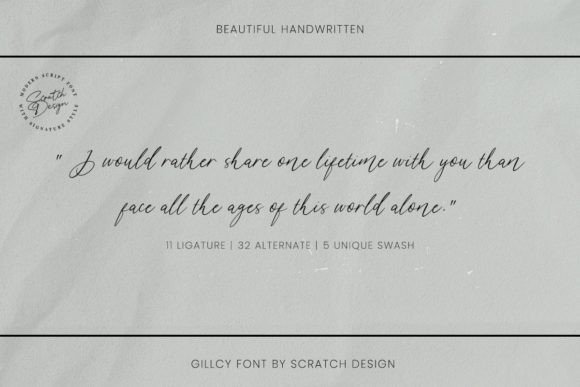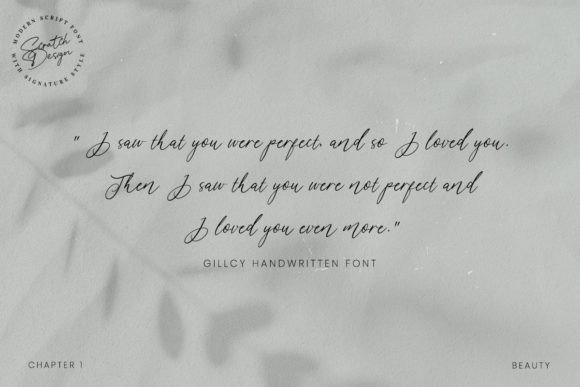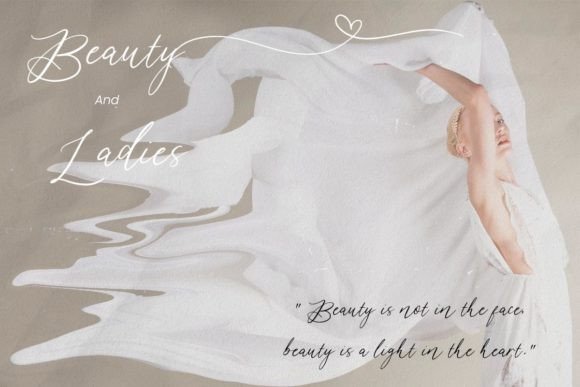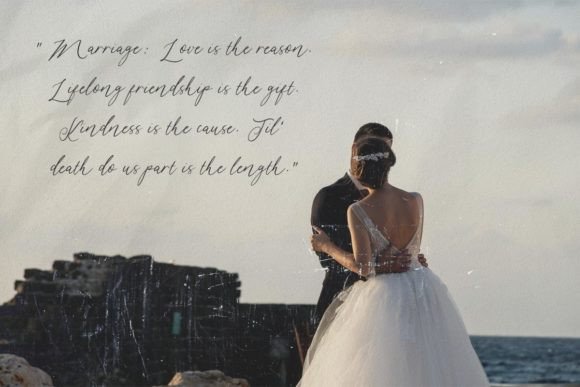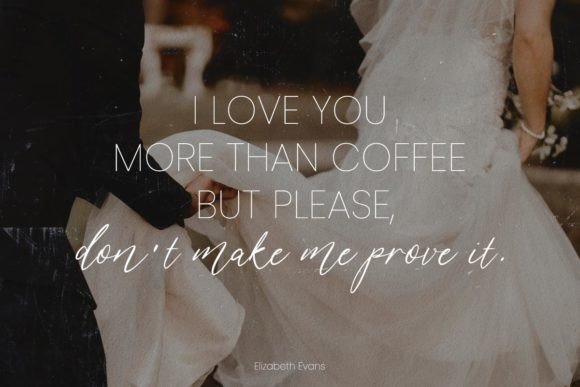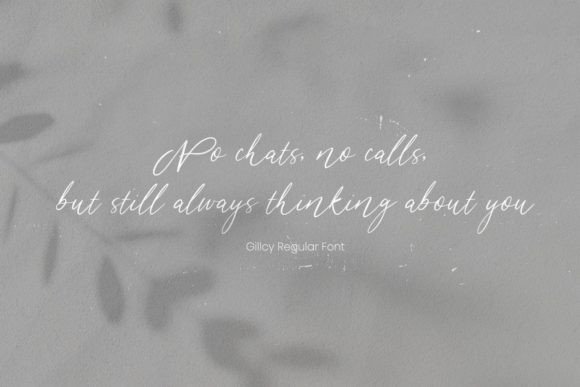
Discover the Magic of Gillcy Font: Elevate Your Creative Vision
Have you ever been working on a design project, pouring your heart and soul into it, only to feel like something’s missing? That’s when you start experimenting with different fonts, hoping to find the perfect fit. For many designers, this is a familiar experience. But what if you could elevate your creative vision with a single, elegant font that effortlessly brings your ideas to life?
Enter Gillcy Font, a stunning script font designed to add a touch of sophistication and whimsy to your work. Whether you’re creating a branding campaign, crafting a wedding invitation, or simply adding flair to a social media post, Gillcy Font is the perfect companion. Its intricate details and flowing lines make it a valuable asset for designers looking to take their creations to the next level.
Gillcy Font Key Features
- Unique Characteristics: Gillcy Font features a unique blend of geometric and humanist elements, resulting in a distinctive and modern aesthetic.
- Kerning and Ligatures: Gillcy Font includes carefully crafted kerning pairs and ligatures, ensuring smooth text rendering and a polished appearance.
Gillcy Font Review
I recently had the chance to work with the Gillcy font, and I must say it’s a unique addition to any design project. ✨ Here are some things that really stood out to me:
- Highly legible**: The Gillcy font is designed to be easy on the eyes, making it perfect for body text or even headlines.
- Distinctive flair**: The font’s unique character set and flair make it stand out in any design, adding a touch of personality to your work.
- Great for digital use**: Gillcy font looks fantastic on screens, with clear and crisp lettering that’s perfect for web or mobile design.
Of course, no font is perfect, and Gillcy has its limitations: ⚠️
- Not ideal for formal or traditional projects**: The Gillcy font’s unique style might not be the best fit for formal or traditional design projects, where a more classic font might be preferred.
- Limited language support**: While the font includes a wide range of characters, it may not include all the characters you need for certain languages.
Overall, I think Gillcy font is a great addition to any designer’s toolkit. It’s a fun and creative font that’s perfect for projects where you want to add a bit of personality. While it may not be suitable for every project, I think it’s definitely worth exploring and experimenting with.
Getting the Most Out of Gillcy Font
For optimal results, use Gillcy Font in combination with a clean and minimalist design aesthetic.
Experiment with different font sizes and styles to create visual interest and hierarchy in your design.
Gillcy Font is ideal for:
- Typography-heavy designs, such as posters and brochures.
- Branding and identity design, particularly for tech and creative industries.
- Web design, especially for landing pages and product pages.
Alternatives to Gillcy Font for Designers
Oswald is a popular sans-serif font that is great for headings and titles. It has a strong, bold appearance that works well for modern and edgy designs. Oswald is a good choice when you want to create a sense of urgency or importance.
Compared to Gillcy Font, Oswald has a more aggressive feel and is better suited for bold statements. While Gillcy Font has a more elegant and sophisticated appearance, Oswald is more attention-grabbing.
Lato is a modern sans-serif font that is highly legible and versatile. It works well for both body text and headings and has a clean, minimalist appearance. Lato is a good choice when you want to create a sense of simplicity and elegance.